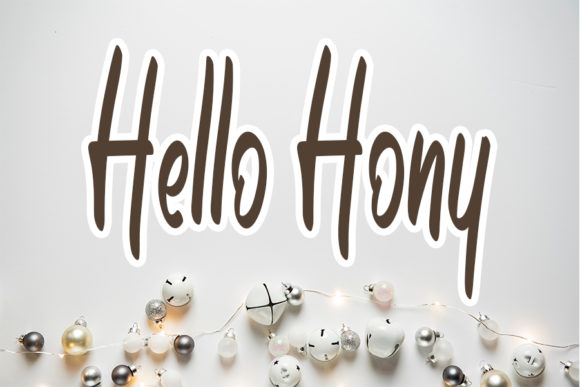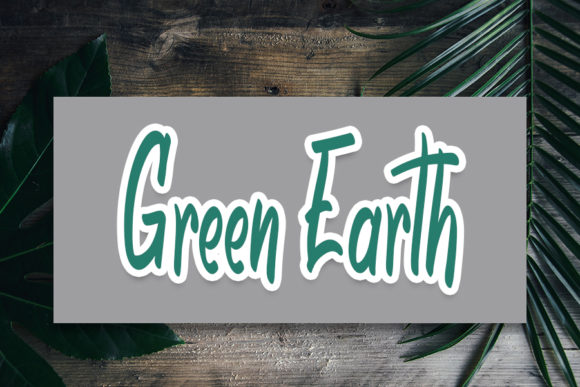
Sweet Yellow Font
db-ku.com - Script & Handwritten -- Sweet Yellow is a cute and friendly handwritten font. Its natural and unique style makes it incredibly fitting to a large pool of designs. The only limit is your imagination!